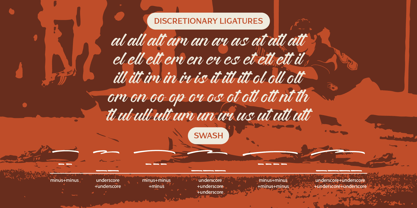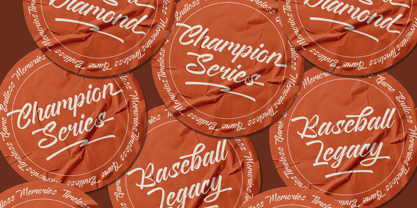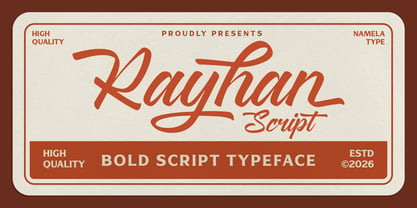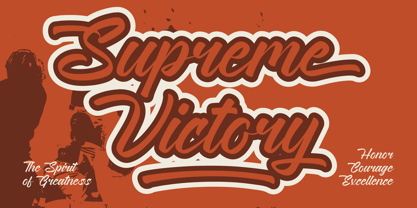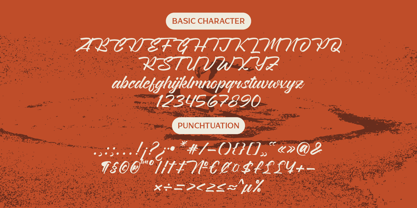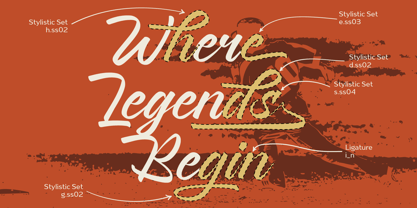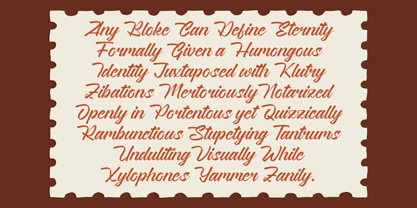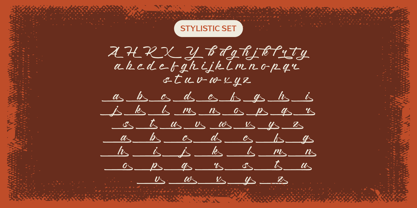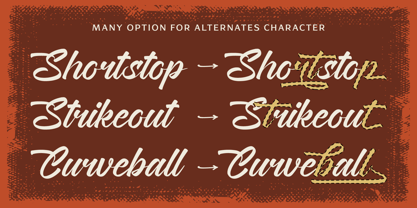
Rayhan Script
A família de fontes Rayhan Script foi desenhada por Nur Syamsi e publicada pela NamelaType. Rayhan Script contém 1 estilos. Saiba mais sobre esta família
Rayhan Script is a bold handwritten script font that blends expressive brush lettering with elegant calligraphic style. Inspired by vintage sports branding, sign painting, and classic lettering, it features smooth connections, confident curves, and excellent readability. Designed for branding, logos, packaging, apparel, invitations, and display typography, it balances strength with sophistication. OpenType features—including ligatures, contextual alternates, stylistic alternates, and decorative swashes—create natural, handcrafted lettering with minimal effort. Carefully refined for consistency and versatility, Rayhan Script delivers a timeless, premium aesthetic that helps designers create expressive, professional typography across modern and vintage-inspired projects.